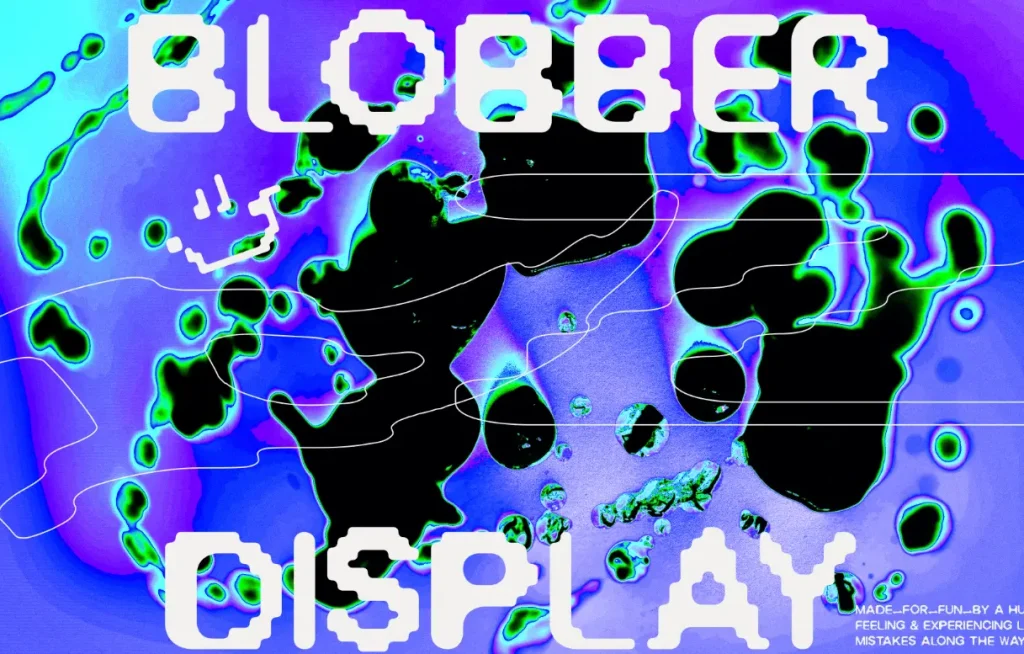
Blobber is a bold display font built from rounded pixel forms. The design features thick, chunky letterforms with a distinct character.
This caps-only typeface includes capitals, numbers, punctuation, and a few extra glyphs. Great for posters, game titles, logos, and album art where large-scale impact is the goal.
Key Features
- Caps-only character set
- Includes A–Z capitals, 0–9 numbers, and punctuation
- Thick, rounded pixel-blob letterforms
- Suitable for large-size applications